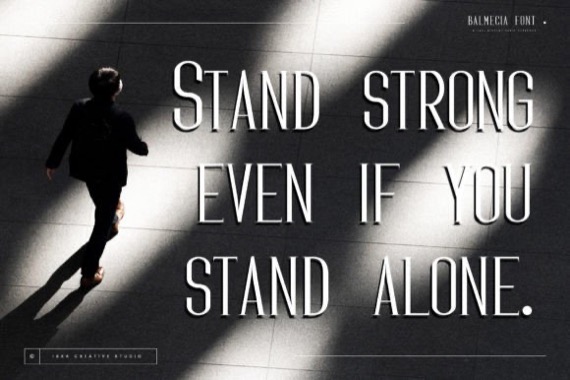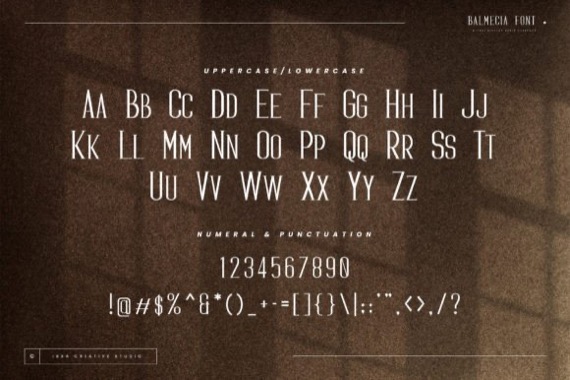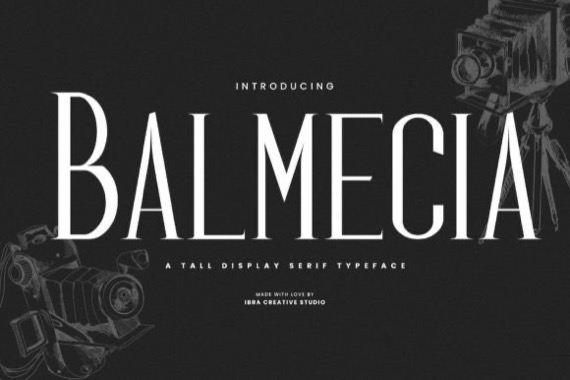
Balmecia Font
Balmecia is a street-style serif display font that was created and released by Ibracreative. It exudes a timeless elegance and sophistication. With its tall and slender letterforms, Balmecia commands attention and lends a touch of grace to any design it graces. The carefully crafted serifs add a classic flair, while the generous letter spacing ensures optimal legibility even in larger sizes. Balmecia’s vertical proportions create a sense of stateliness, making it an ideal choice for headings, titles, and other display applications where a touch of refinement is desired.